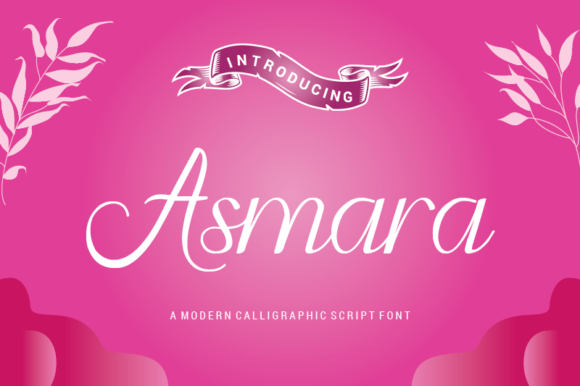
The Asmara Font: A Handcrafted Script Beauty
I’ll never forget the design struggle I faced while working on a wedding invitation project. My client wanted a font that was elegant, yet down-to-earth; something that would make their special day feel both luxurious and intimate. After scouring the internet for hours, I stumbled upon the Asmara font, and it was love at first sight! ✨ In this article, I’ll share my experience with this beautiful script font, its features, and how to make the most of it in your designs.
An Honest Review of Asmara Font
- ✅ Authentic feel: Asmara has a unique, handcrafted charm that makes it stand out from other script fonts.
- ✅ Readability: Despite its elegant nature, Asmara remains highly readable, even at smaller font sizes.
- ✅ Versatility: This font can be used for a wide range of projects, from wedding invitations to social media posts.
- ✅ OpenType features: Asmara supports various OpenType features, including glyphs and stylistic alternates, giving you plenty of creative options.
While Asmara is an amazing font, it’s not perfect. ⚠️ Here are a few things to keep in mind:
- 🤔 Limited use in body text: Due to its script nature, Asmara might not be the best choice for long blocks of body text.
- 🤔 Kerning issues: As with any font, you might encounter kerning issues when using Asmara at very small or very large font sizes.
The Story Behind Asmara Font
Asmara is a beautiful script font created by a talented designer who wanted to craft a font that felt both elegant and down-to-earth. Inspired by traditional calligraphy and handwriting, Asmara was designed to be a versatile font that could be used for a wide range of projects. From wedding invitations to social media posts, Asmara’s authentic feel and readability make it a popular choice among designers.